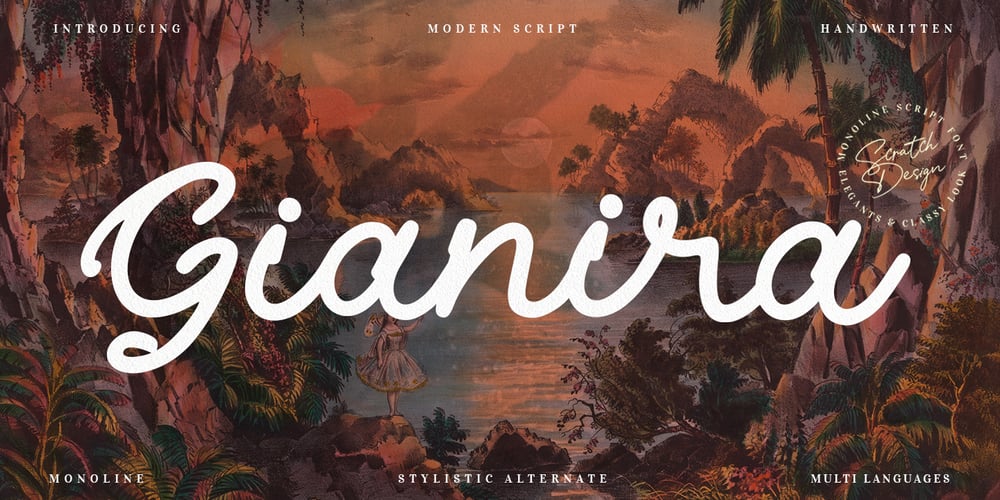
Gianira
Gianira font
Gianira Font Family was designed by Gitayogi Irhandi and published by Scratch Design. Gianira contains 1 styles and family package options. Introducing Gianira Script is a modern handwritten with monoline shape font. This font will work for design such as poster, name card, quote, website landing page, title, packaging, clothing, prints ads, logos, branding projects, product packaging, mugs, shopping bags, t-shirts, book covers, name cards, invitation cards, greeting cards, label, photography, watermark, special events, etc. This font is complete with multi-language supports, uppercase & lowercase, punctuations, and stylistic alternates